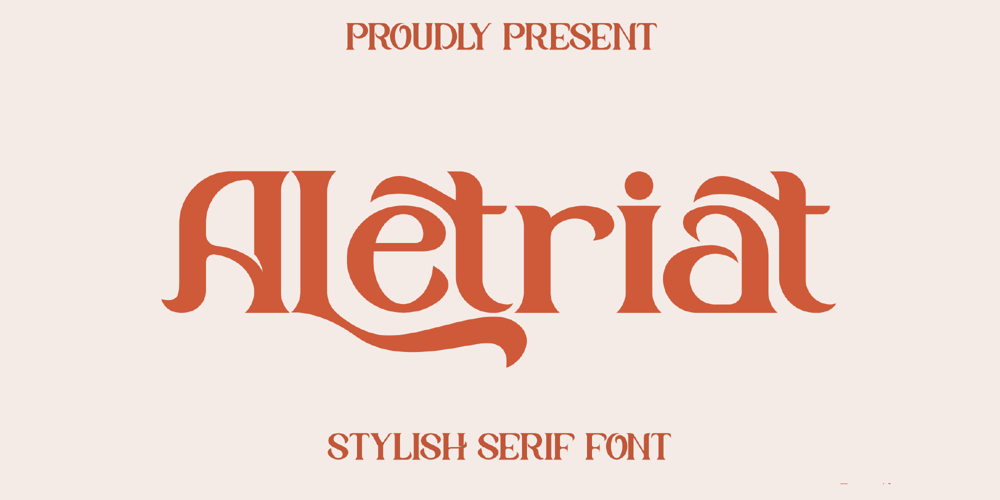
Aletriat
Aletriat font
Aletriat Font Family was designed by Heru Utama Putra and published by Letterena Studios. Aletriat contains 2 styles and family package options. Aletriat is a classic serif font that has its own unique style & modern look.This typeface is perfect for an elegant & luxury logo, book or movie title design, fashion brand, magazine, clothes, lettering, quotes, and so much more. This font is PUA encoded, which means you can access all of the glyphs and swashes with ease!